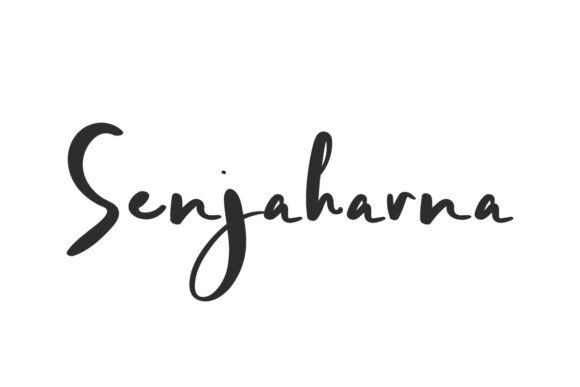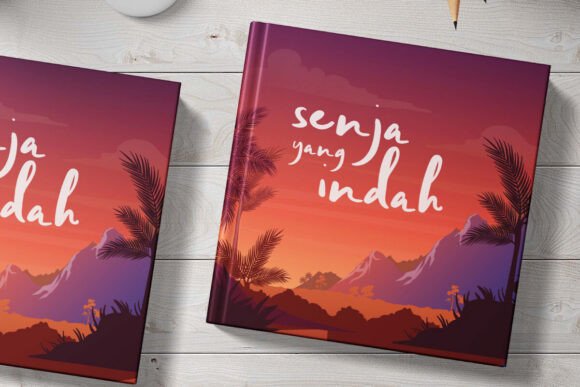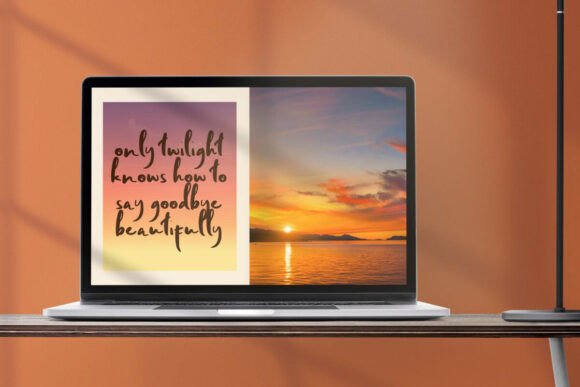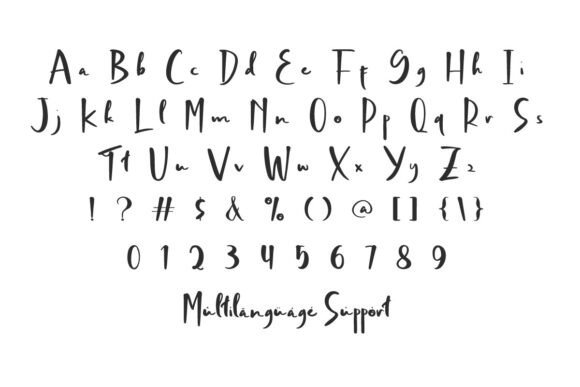
Senjaharna Font: Elegant Handwritten Script for Branding & Logo Design
About the Senjaharna Font
The Senjaharna Font is here to transform your projects with its distinctive character and style. Senjaharna Font is beautiful handwriting that harmoniously forms a neat and elegant typographic appearance. It will add artistic value of handmade to any creative project, such as book titles, branding, cover, greeting card, logo design, packaging design, poster, quotes, screen printing, stationery, sticker, title, website, and much more.
Senjaharna Font Usage Examples
Senjaharna Font Example